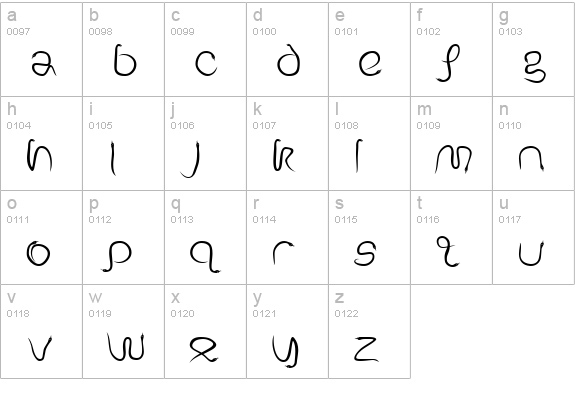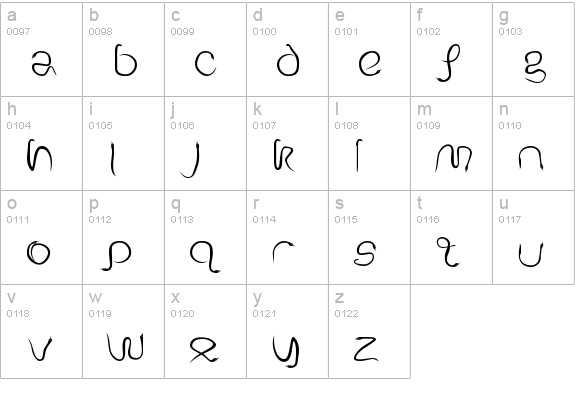
Serpent Font Details
Serpent font, a captivating and elegant typeface, is a true gem in the realm of typography. With its sleek and sinuous curves, this font exudes a sense of allure and sophistication that is sure to captivate any reader. Its unique design pays homage to the serpentine creature, weaving a tale of mystique and charm. But what sets Serpent font apart from the rest is that it is not only visually stunning, but also free. Yes, you read that right – this exquisite font is available for download at absolutely no cost. Thanks to FontsMarket.com, a leading platform for quality fonts, Serpent font can be freely accessed by designers, writers, and creatives alike. Imagine the possibilities that come with having such a remarkable font at your disposal. Whether you're working on a branding project, designing a website, or creating eye-catching graphics, Serpent font will effortlessly elevate your work to new heights. Its versatility allows for seamless integration into various styles and themes, making it suitable for a wide range of projects. The attention to detail in Serpent font is truly commendable. Each letter has been meticulously crafted, ensuring a harmonious balance between elegance and legibility. The strokes flow effortlessly, creating a seamless rhythm that is visually pleasing to the eye. From uppercase to lowercase, every character is a work of art, making Serpent font a true testament to the artistry of typography. So why wait? Embrace the allure of Serpent font and let your creativity soar. Download this exceptional typeface for free at FontsMarket.com and unlock a world of design possibilities. With Serpent font at your fingertips, your projects will exude an air of sophistication and grace that is sure to leave a lasting impression.